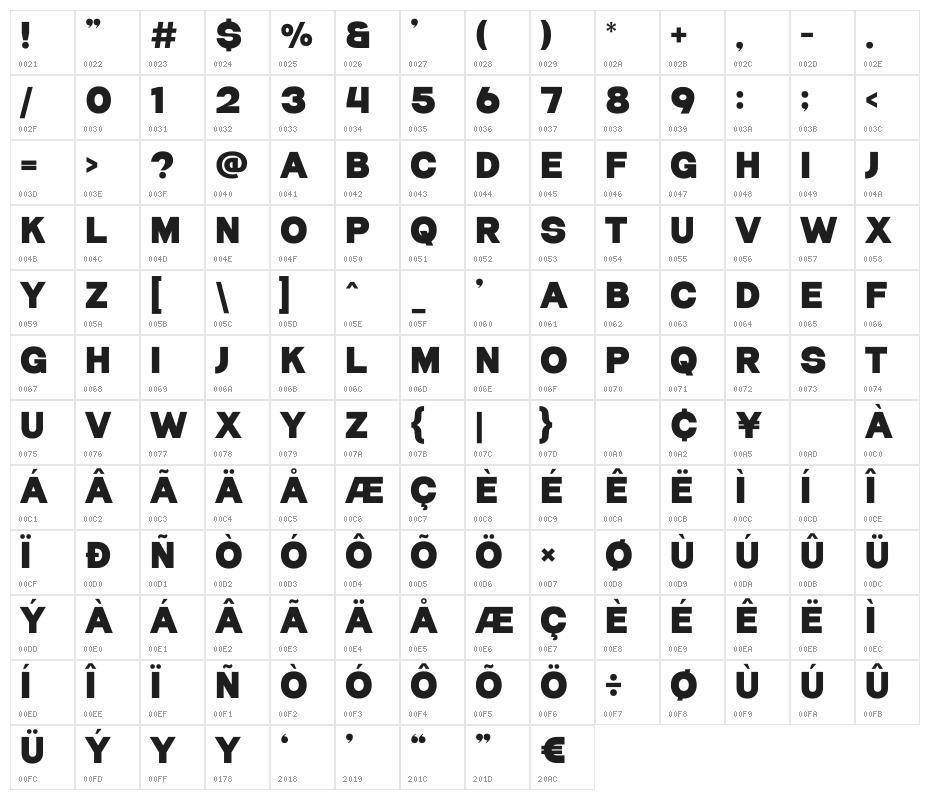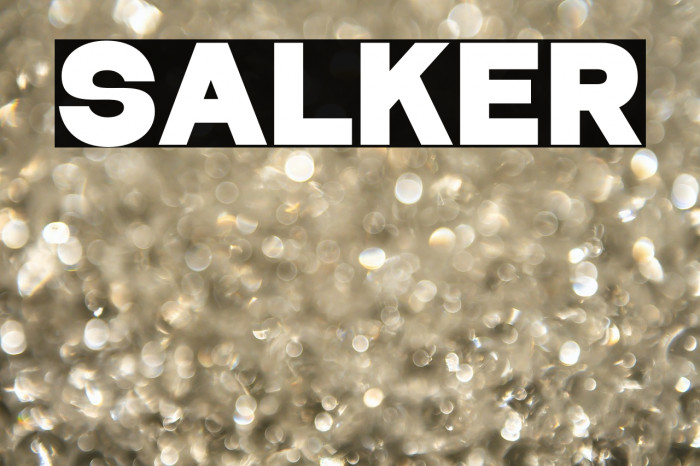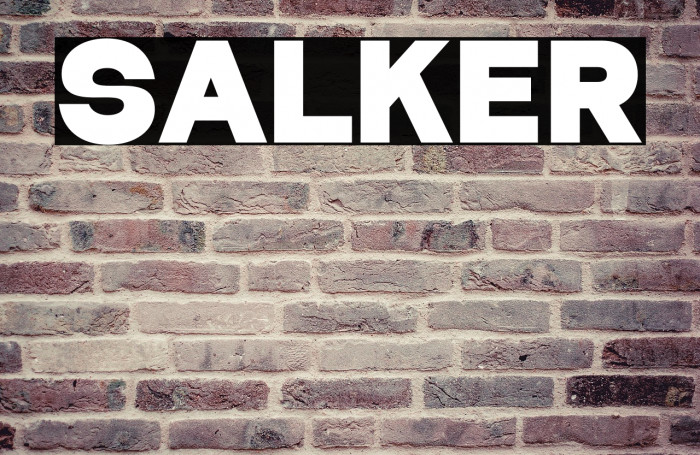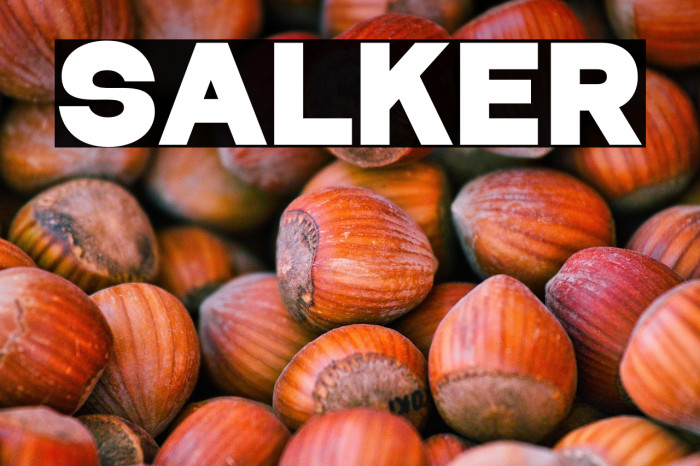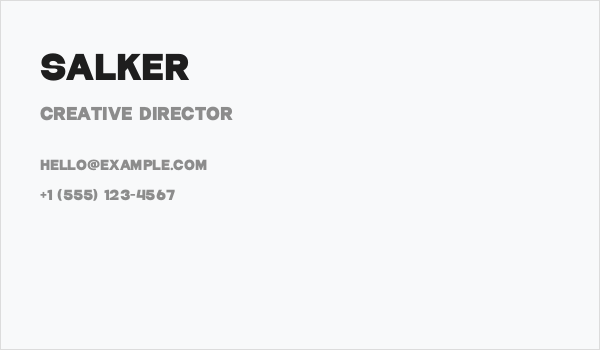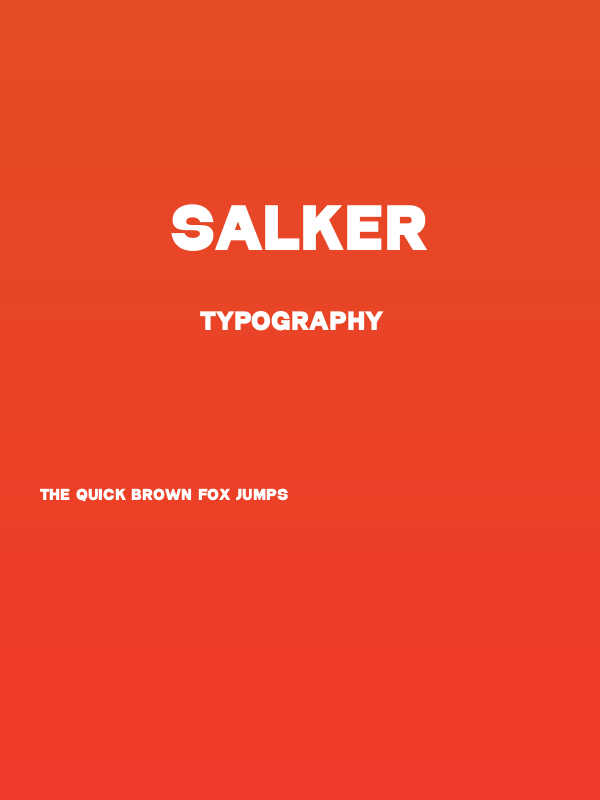
Salker Font
Salker Description
This font is characterized by its bold and robust appearance, featuring thick, uniform strokes that convey a sense of strength and stability. The characters are well-defined with a modern, sans-serif style that emphasizes clarity and readability. The uppercase and lowercase letters maintain a consistent width, contributing to a harmonious and balanced look. The numerals are equally bold, ensuring they stand out prominently. Special characters are designed with the same boldness, making them suitable for impactful statements. Overall, this font exudes a contemporary and professional vibe, making it ideal for a variety of design projects.